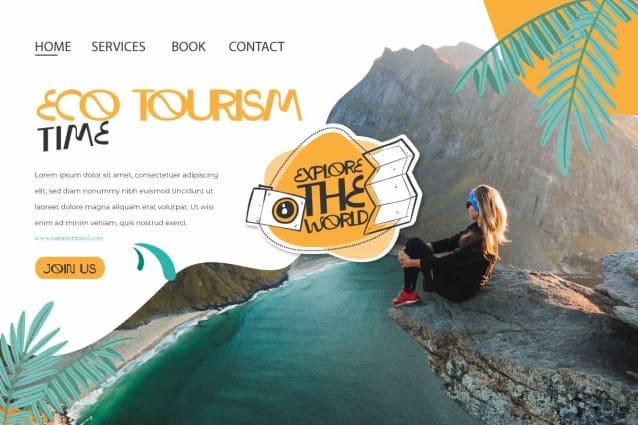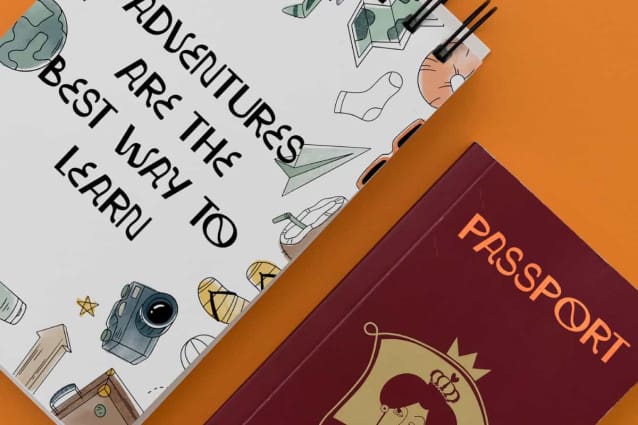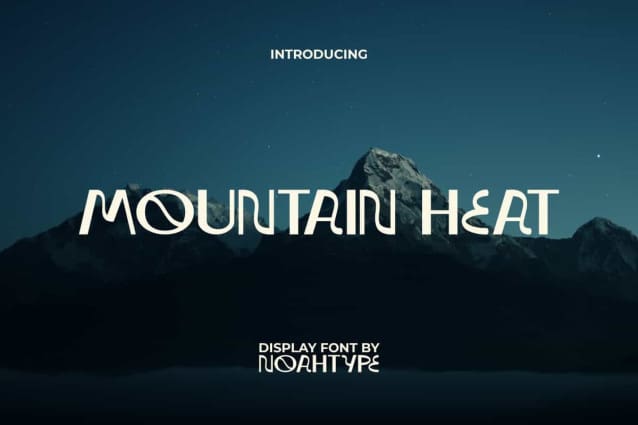
Mountain Heat Font
Mountain Heat Font is a unique modern display font by NoahType. This font was created from creativity to create an attractive letter appearance that is still easy to read. It will be good for any designs, such as brand image, cover, custom design, invitation, label, marketing material, menu, poster, product packaging, quotes, signage, stationery, web, and many more!
Mountain Heat Font includes a complete set of ALL CAPS for Uppercase and Lowercase Basic Characters, Numerals, Punctuation, and Symbol. The characters of this font will give sweet touch and also a perfect choice for many industries, such as accessories, advertising, camping, event or festival, fashion, movie, photography, printing, publishing, sport, travel, etc.